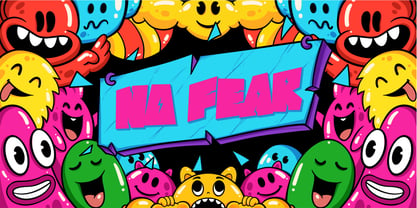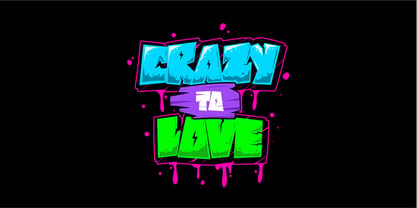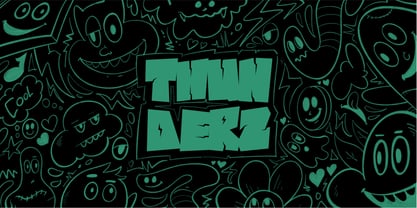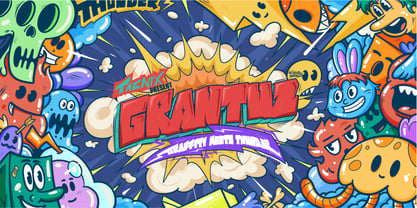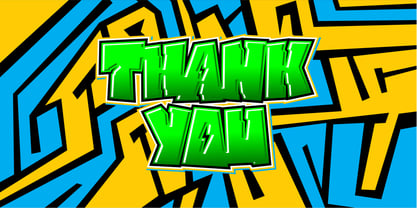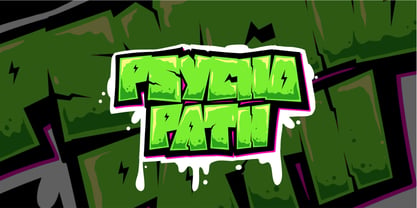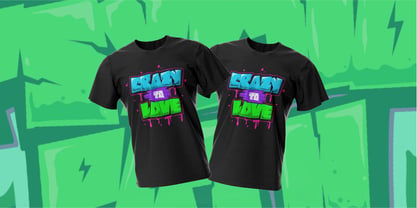
GRANTUZ
by Taznix Creative
The GRANTUZ Font Family was designed by Ricky Hartasni and published by Taznix Creative. GRANTUZ contains 1 styles. More about this family
This font has a sense of movement—like the wind is howling through each character, and each letter is charged with energy. Perfect for anything that needs to convey a sense of power, urgency, and urban edge, Font Graffiti Meet Thunder is ideal for posters, streetwear designs, music album covers, or anything else where you want the message to strike with force.
The contrast of rebellious urban flair and natural destruction makes this typeface stand out—it's loud, it's intense, and it's ready to make an impact.
Designers: Ricky Hartasni
Foundry: Taznix Creative